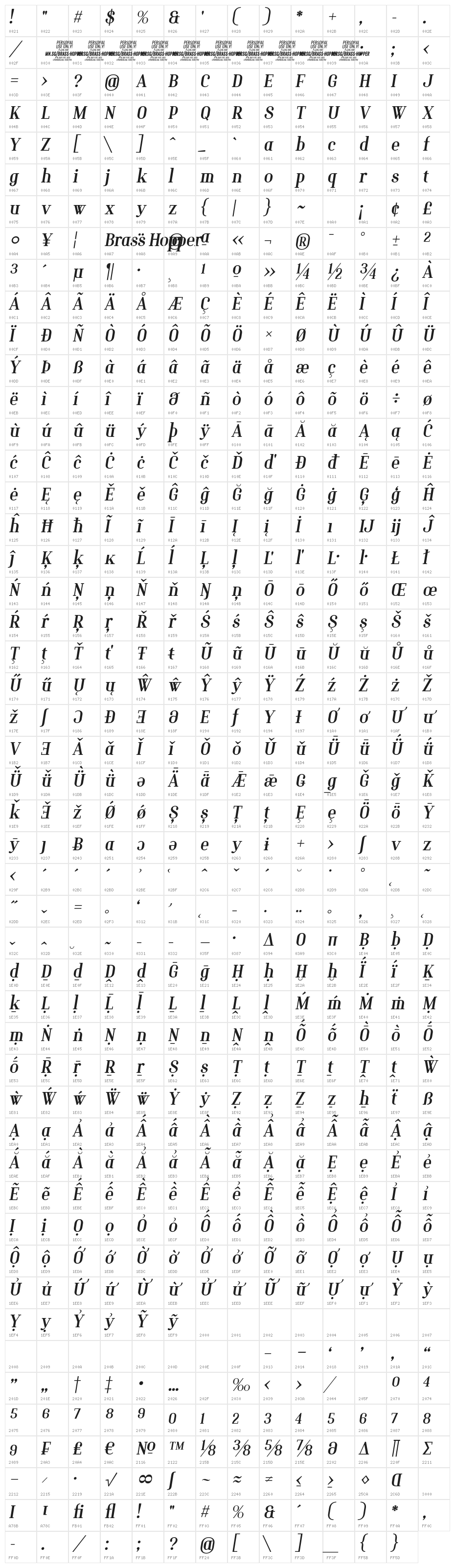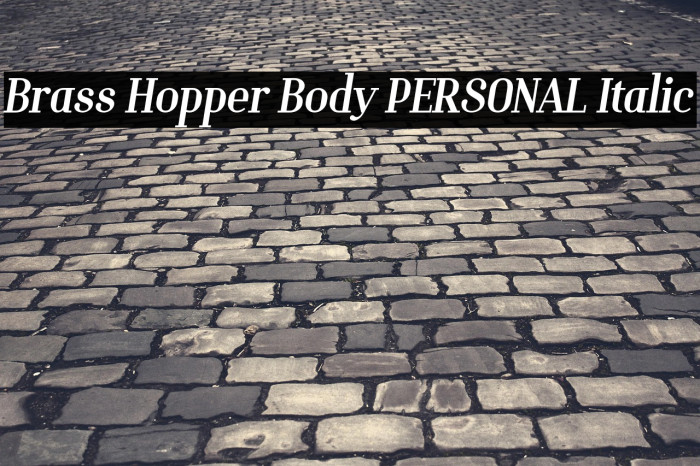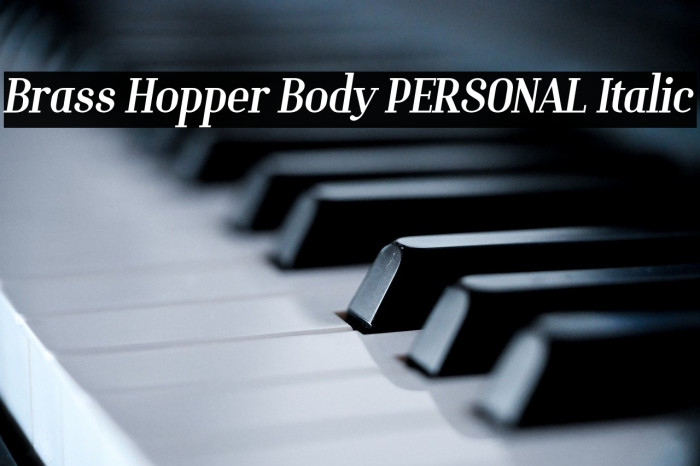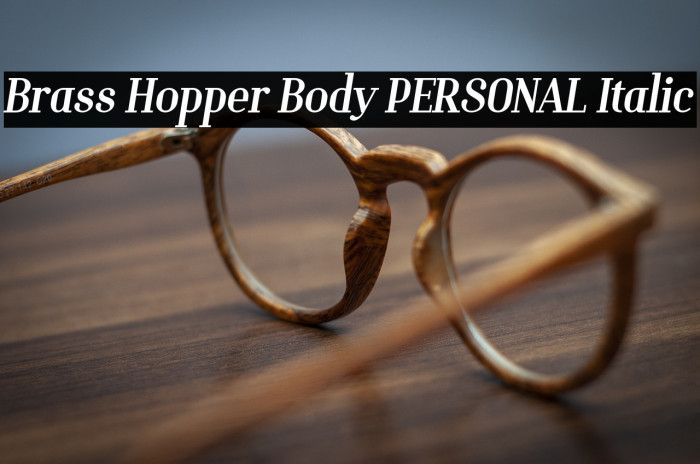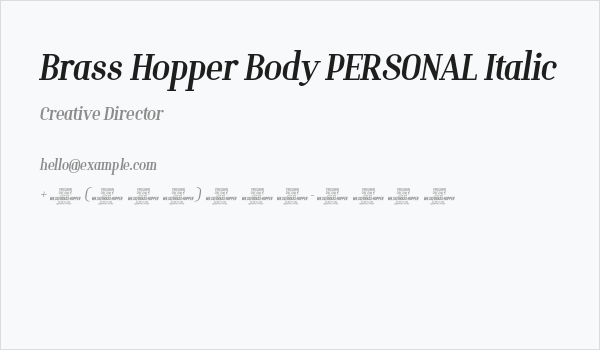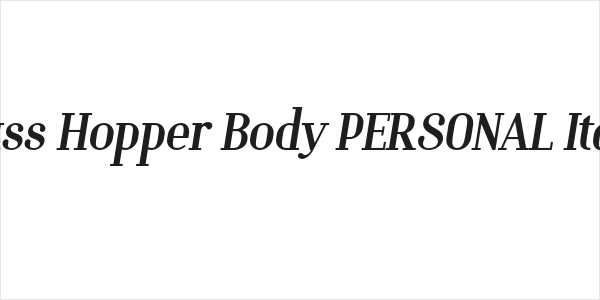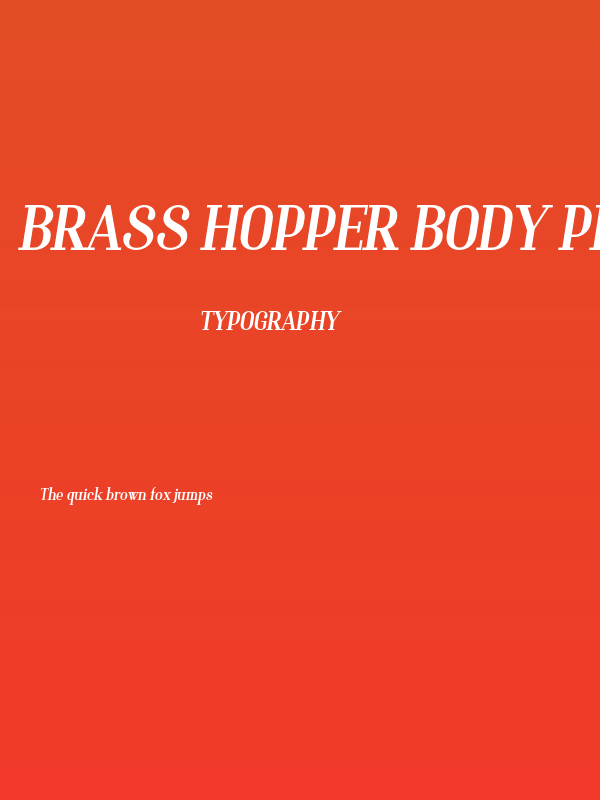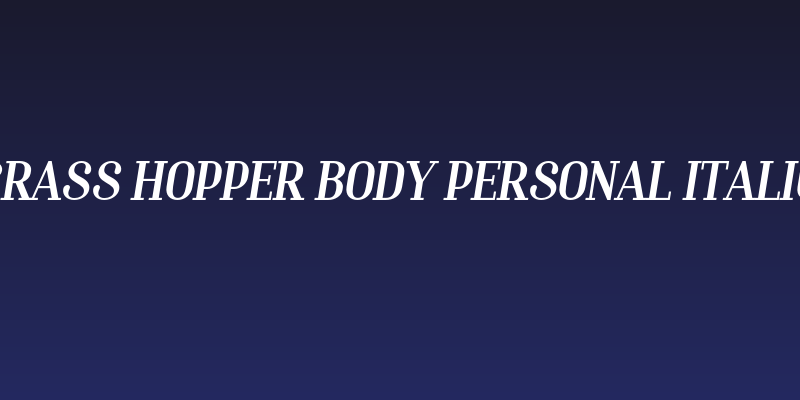
Brass Hopper Body PERSONAL Italic Font
Brass Hopper Body PERSONAL Italic Description
This font exhibits a classic serif style with a modern twist, characterized by its elegant italic form. The uppercase letters are bold and commanding, while the lowercase letters maintain a graceful flow. The numerals are distinct and clear, ensuring readability. The special characters are well-integrated, maintaining the overall aesthetic. The font's italic nature adds a dynamic and sophisticated touch, making it suitable for a variety of design needs. Its high contrast in stroke thickness enhances its legibility and visual appeal, making it a versatile choice for both digital and print media.
| Proposed Projects | Ideal for editorial design, book covers, elegant invitations, branding projects, and sophisticated advertising campaigns. |